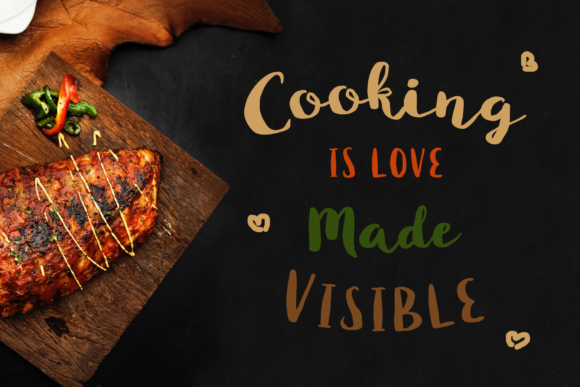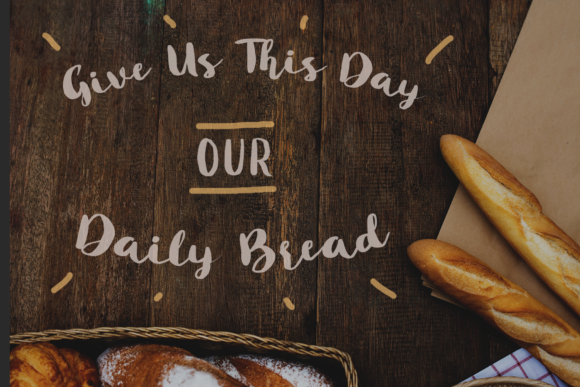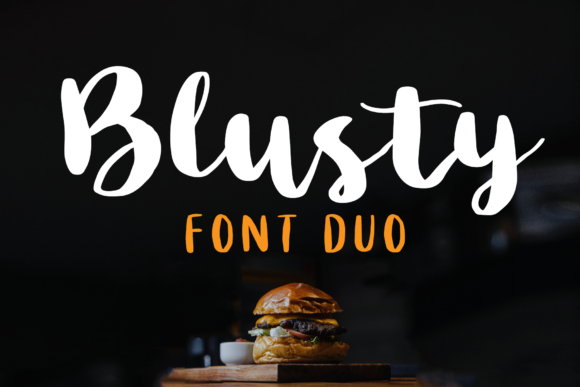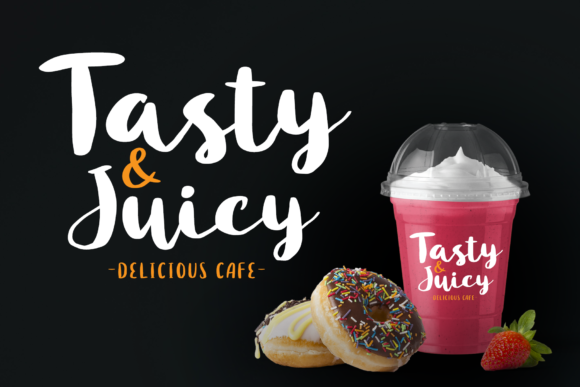
About Blusty Duo Font
The Blusty is a handwritten font duo. Its letters let you transform type into an exciting and beautiful piece of work and are based on the expression of real handwriting. The irregular, hand-lettered look adds a real human touch to things and comes along with a lot of loving details. Combine all font-styles the way you want, add some ornamental swashes or banners and even a single word becomes magnificent.